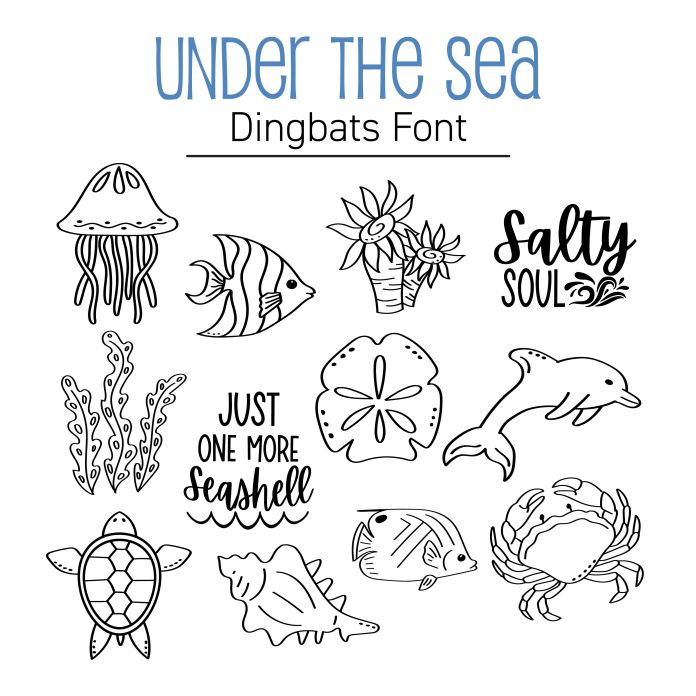
Make a splash with this Under the Sea Dingbats Font, filled with 26 hand-drawn ocean-themed icons perfect for your beachy crafts! From playful sea creatures like turtles, dolphins, and jellyfish to coastal quotes like “Gone Coastal” and “Salty Soul,” each glyph is a mini work of art. These vector images are great for cutting vinyl decals, printing on sticker sheets, designing tropical party invites, or adding nautical flair to scrapbooks and home décor. Try them on HTV for tote bags, mugs, or beach towels, or use printable vinyl for vibrant ocean-themed planner stickers. Compatible with Silhouette Studio and perfect for summer lovers and sea dreamers alike!